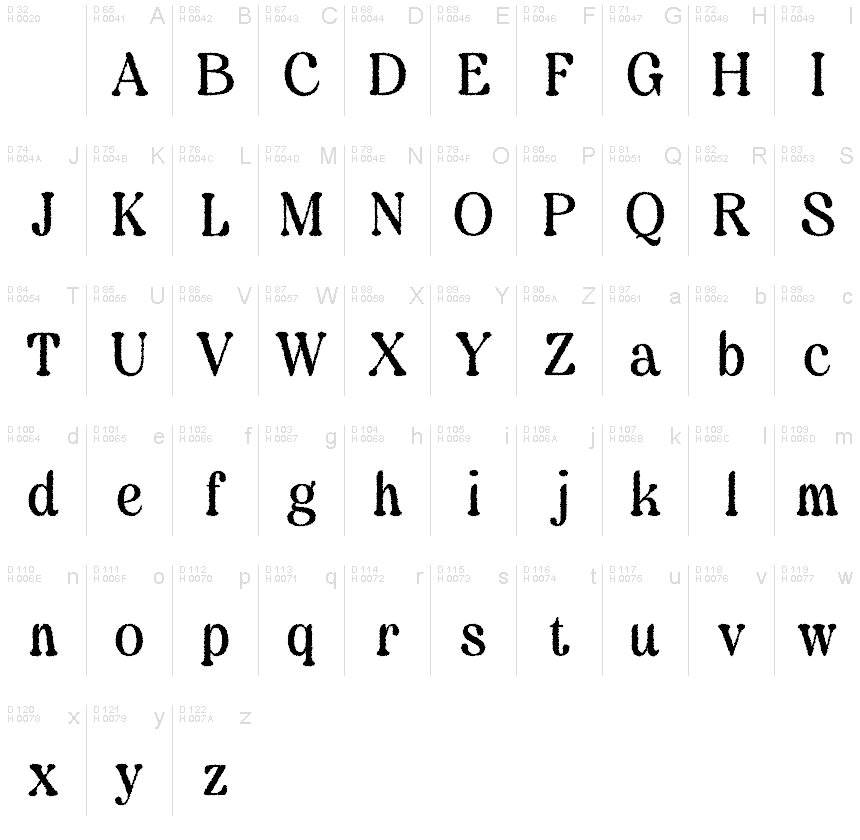
Forena Rough Regular Demo
Forena Rough font by Craft Supply Co. is an expressive typeface with a textured appearance and artistic charm. This serif font has a vintage feel that mimics handwritten styles with rough edges, giving it an authentic handcrafted quality. Even though the original Forena was bold in its design, this version adds much of that immaculate historical essence to it.